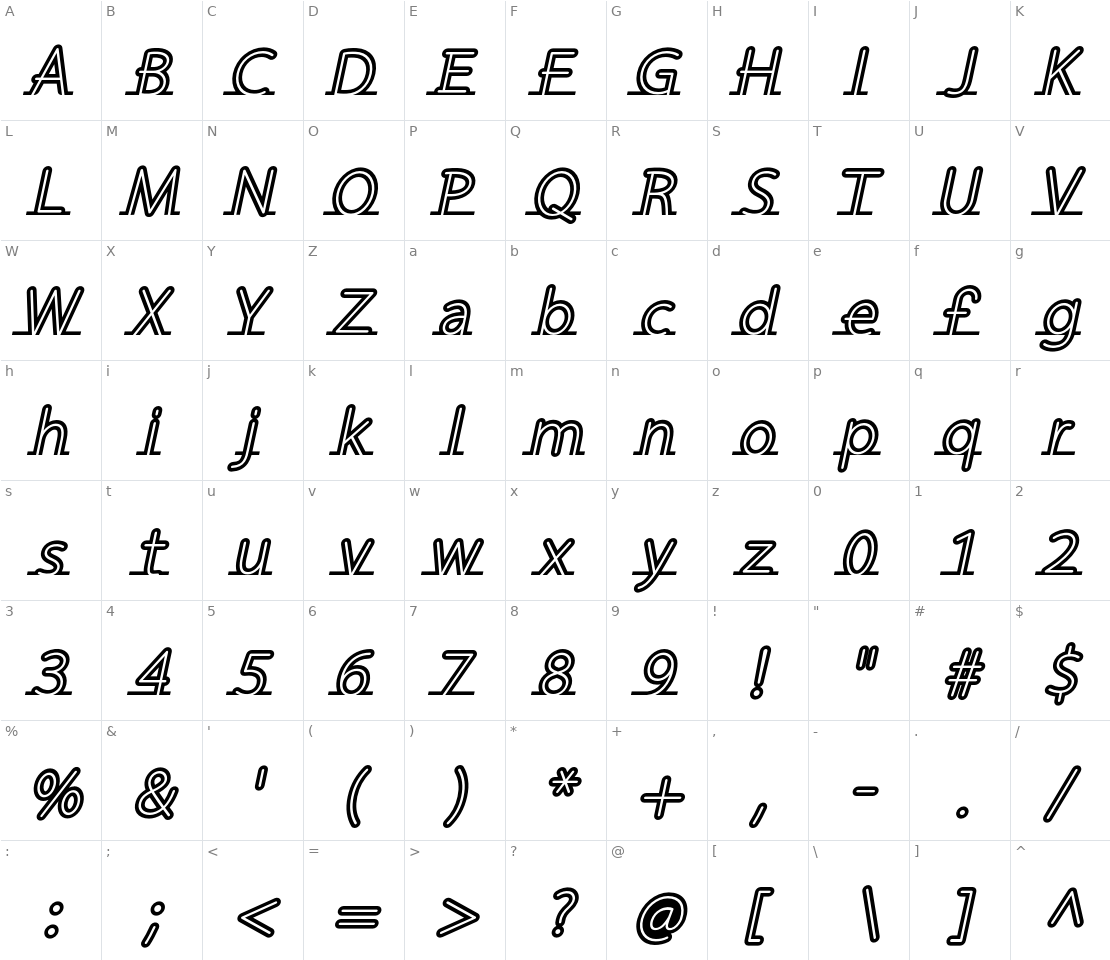
Fortrack
Fortrack is a rounded outline display face from TomChew with a casual italic lean and consistent monoline strokes that give it a relaxed, retro energy. The open letterforms keep things light and airy, reading best at large sizes for headlines, posters, and playful branding where you want something that feels approachable and a little nostalgic without being heavy-handed.